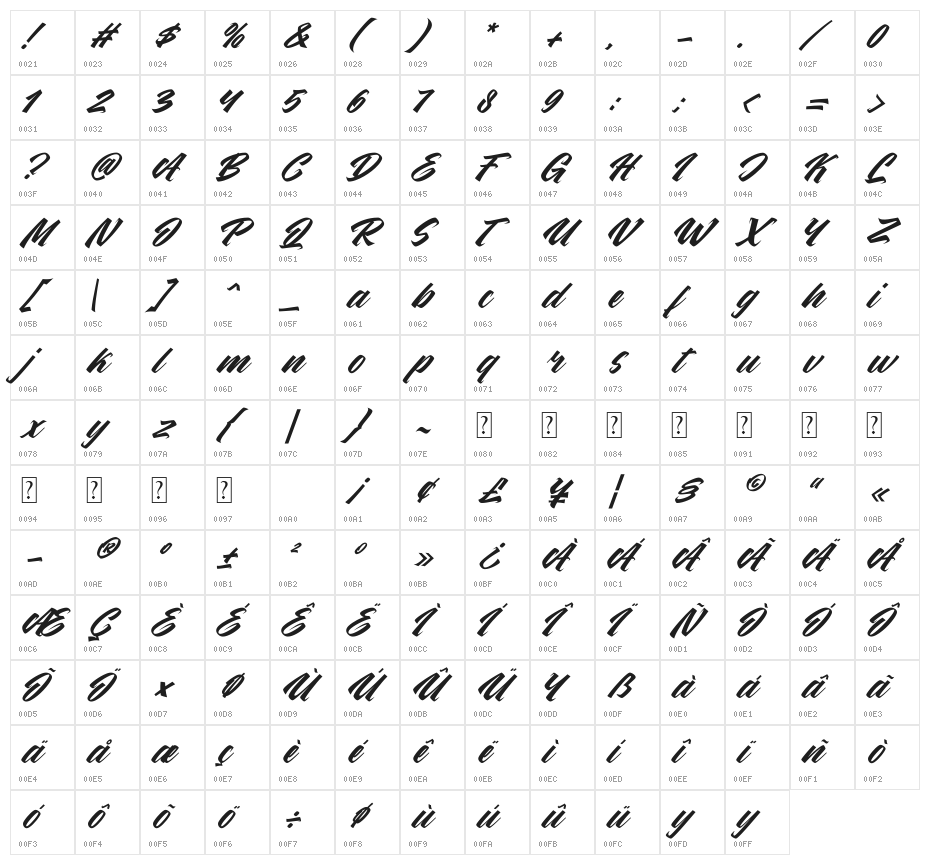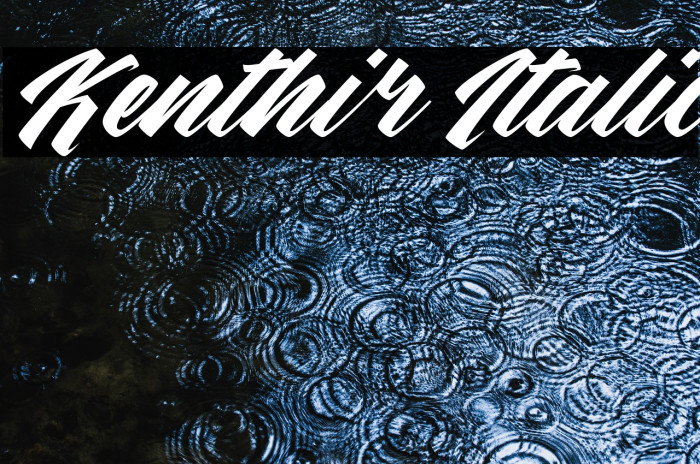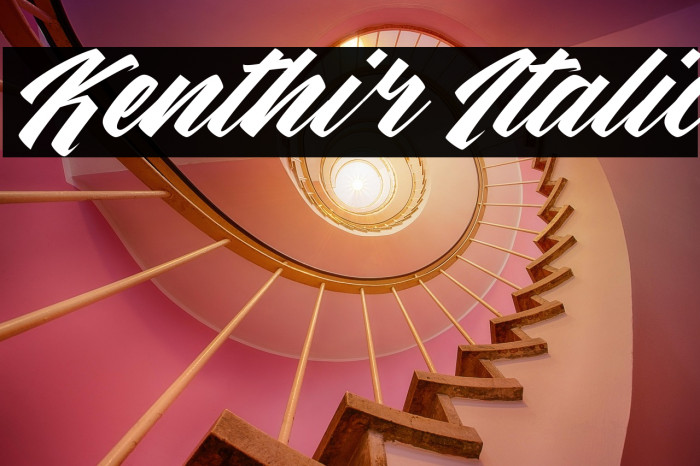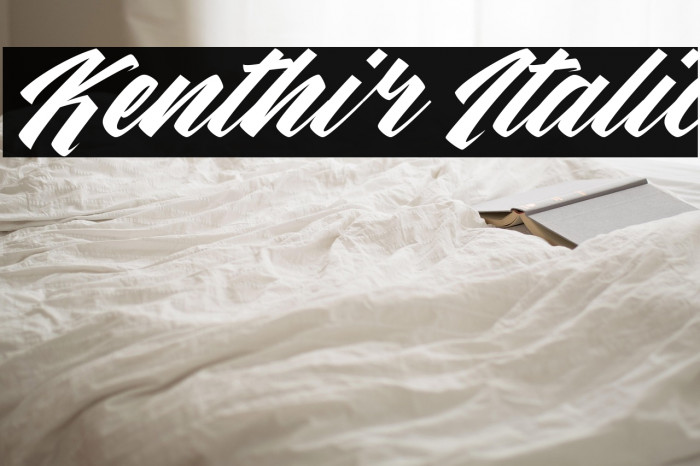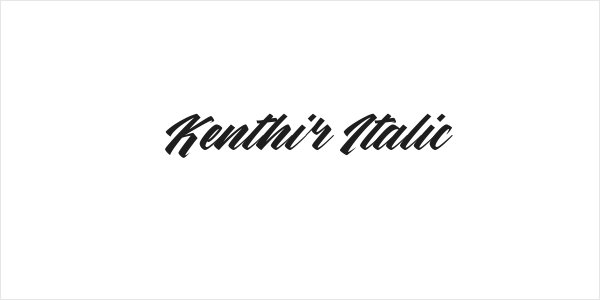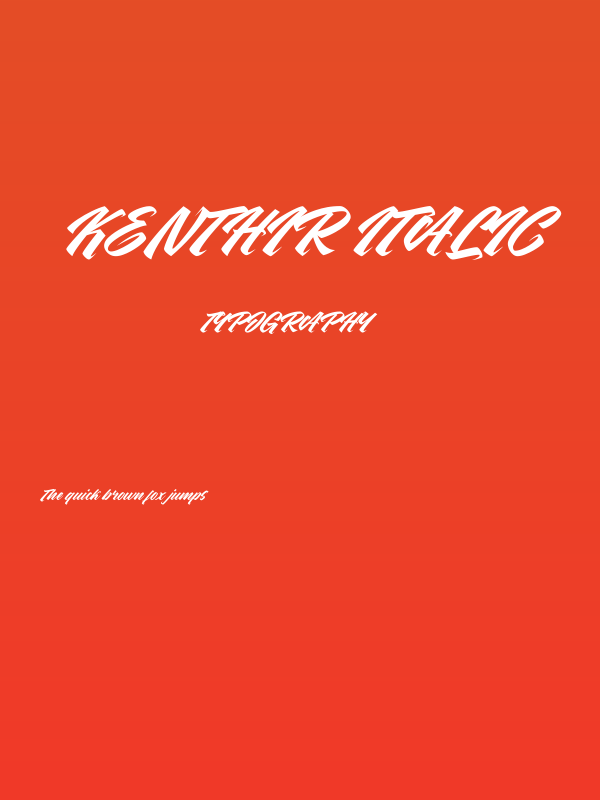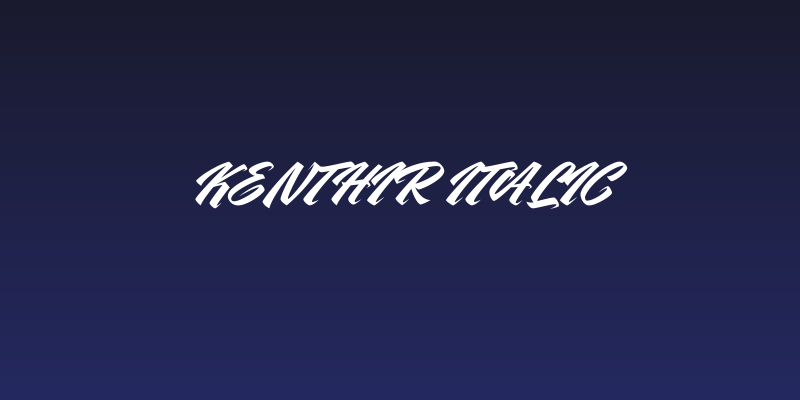
Kenthir Italic Font
Kenthir Italic Description
This font exudes a bold and dynamic presence with its italicized, script-like style. The characters are fluid and connected, giving a sense of motion and elegance. The strokes are thick and consistent, providing a strong visual impact. The uppercase letters maintain a uniform height, while the lowercase letters exhibit a slight slant, enhancing the cursive feel. Numbers and special characters are crafted with the same attention to detail, ensuring a cohesive look across all elements. This font is ideal for projects that require a touch of sophistication and flair.
| Proposed Projects | Ideal for branding, invitations, and artistic projects requiring a sophisticated touch. |